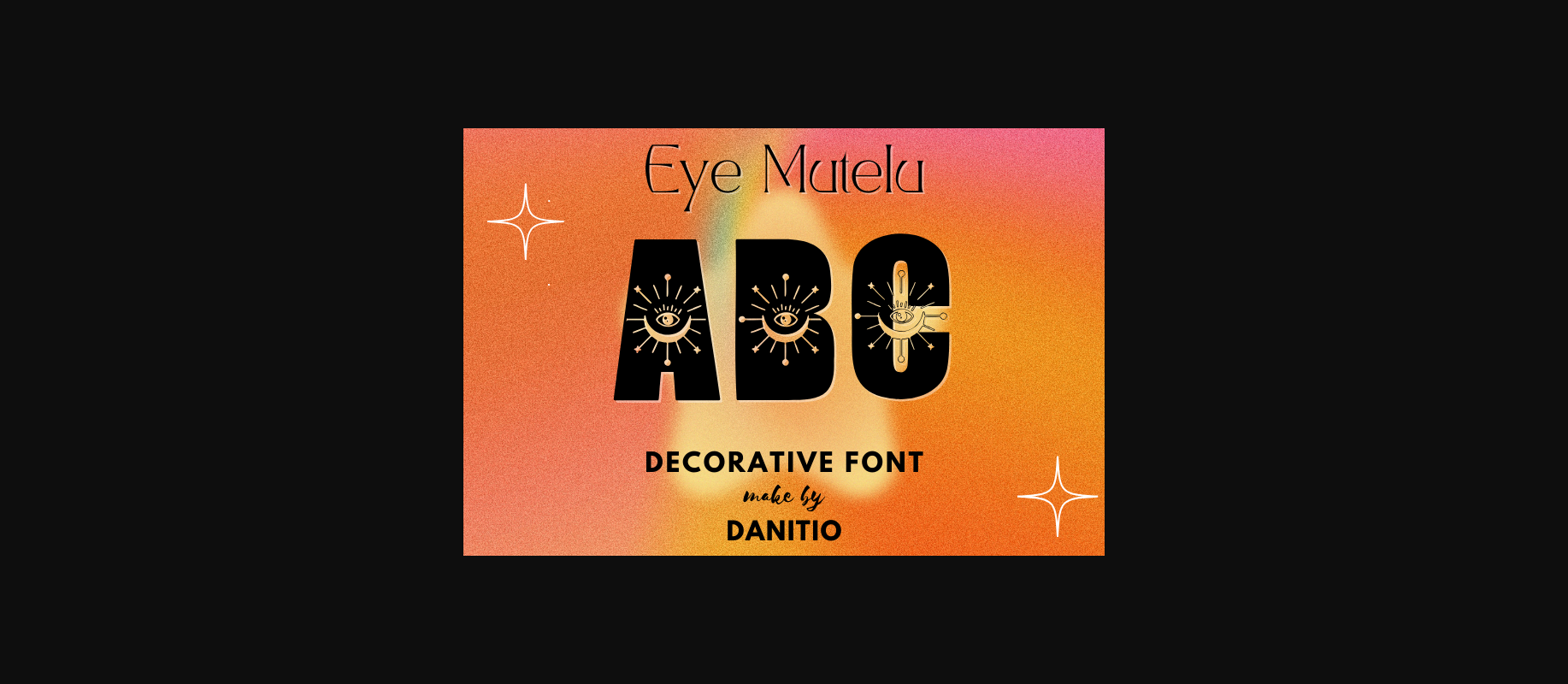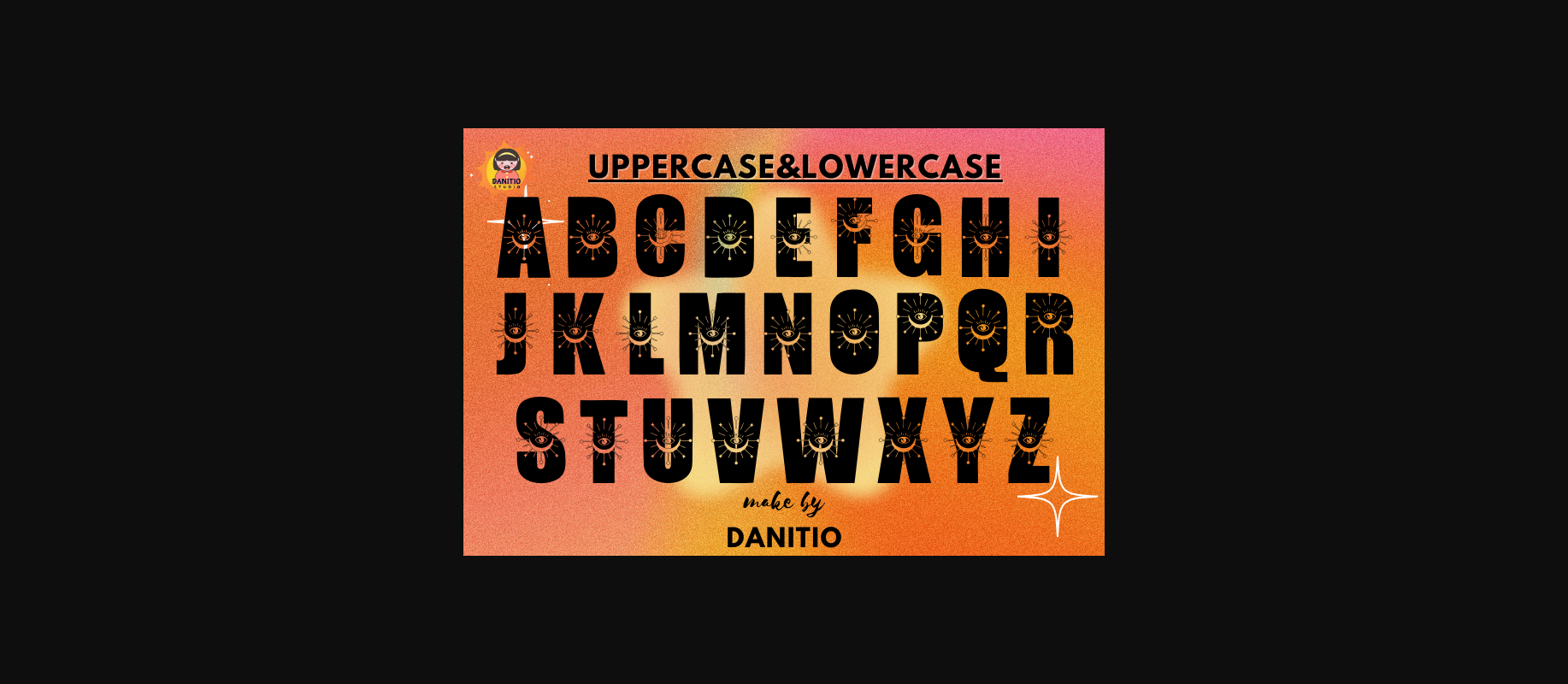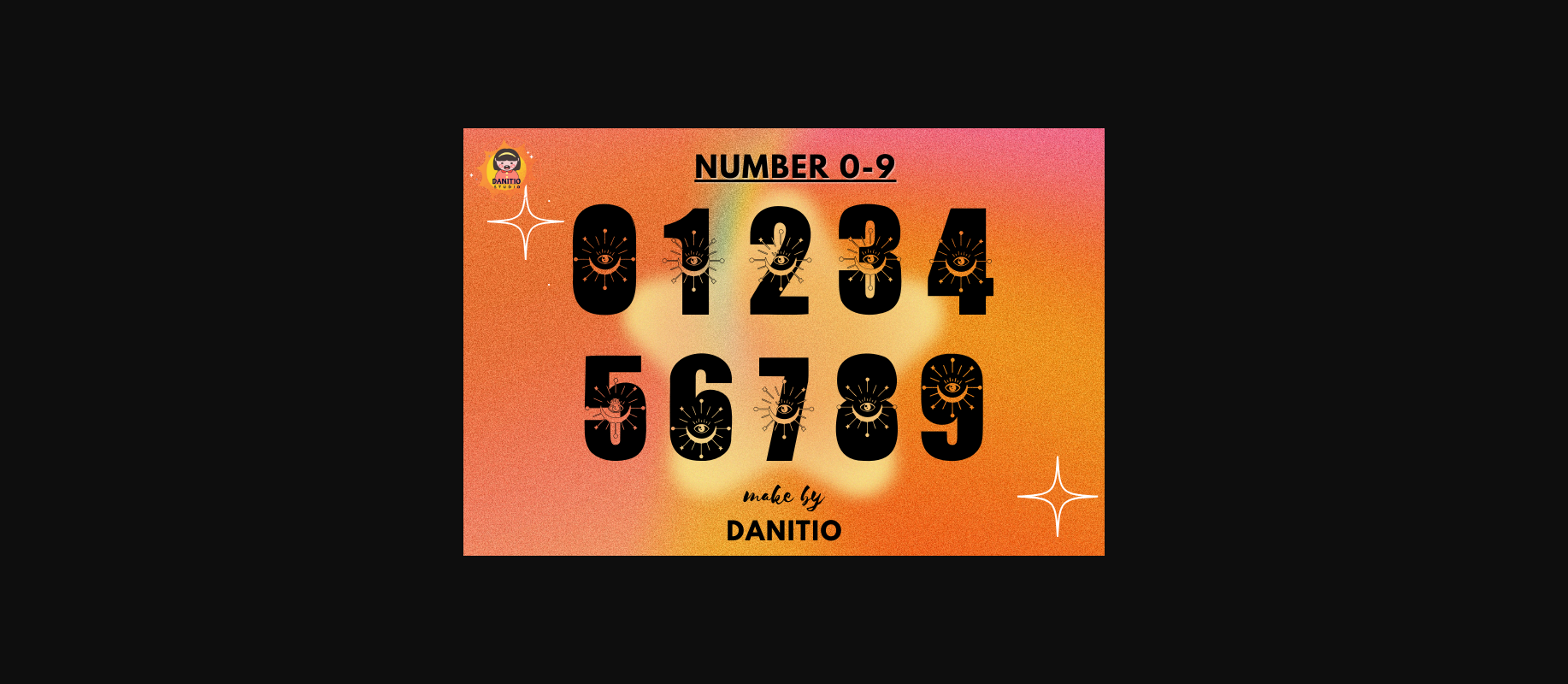
About Eye Mutelu Font
Eye Mutelu is a cute, quirky, and eye-catching decorative font. Its mystical vibe is perfect for all your witchy and boho-inspired designs.